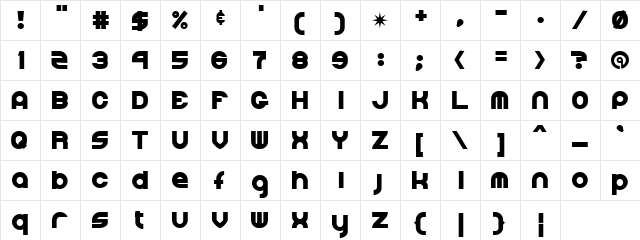
DirtyClutch Regular Font Preview
DirtyClutch Regular
DirtyClutch Regular Font Details
Design Context for DirtyClutch Typeface
DirtyClutch is a composed and adaptable typeface that performs quietly and consistently across a wide range of design contexts.
Pro Tip: Pair DirtyClutch with a font of contrasting weight or personality to build a more expressive typographic hierarchy.